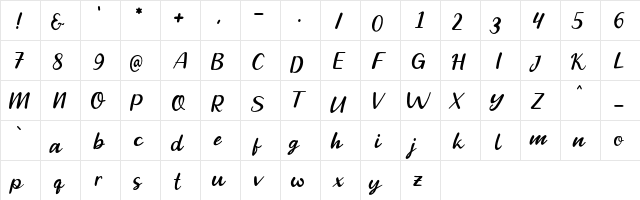
Go Orange Regular
| Foundry | Polah |
| Designer | Polah |
Design Context for Go Orange Typeface
Go Orange takes a measured approach to typography — its balanced proportions and neutral character make it a reliable workhorse for both digital and print work.